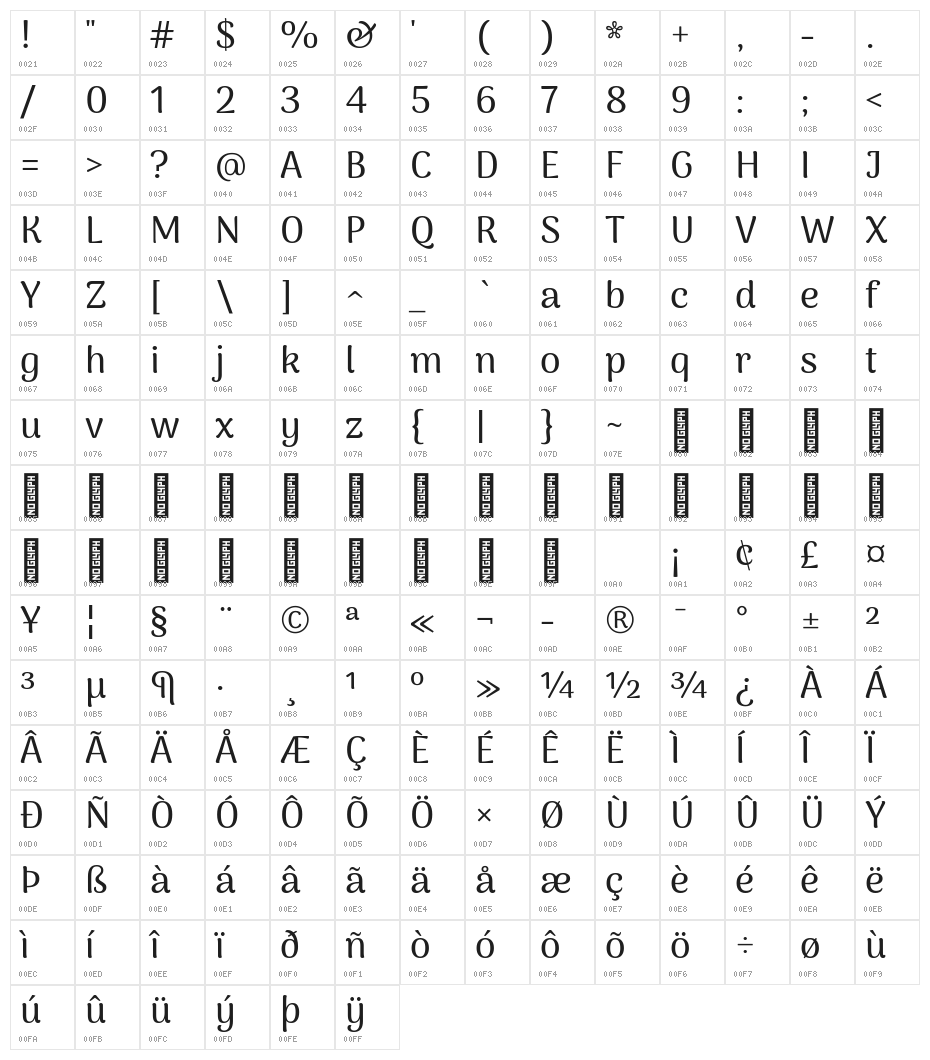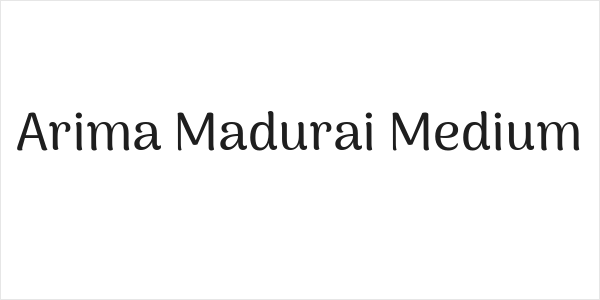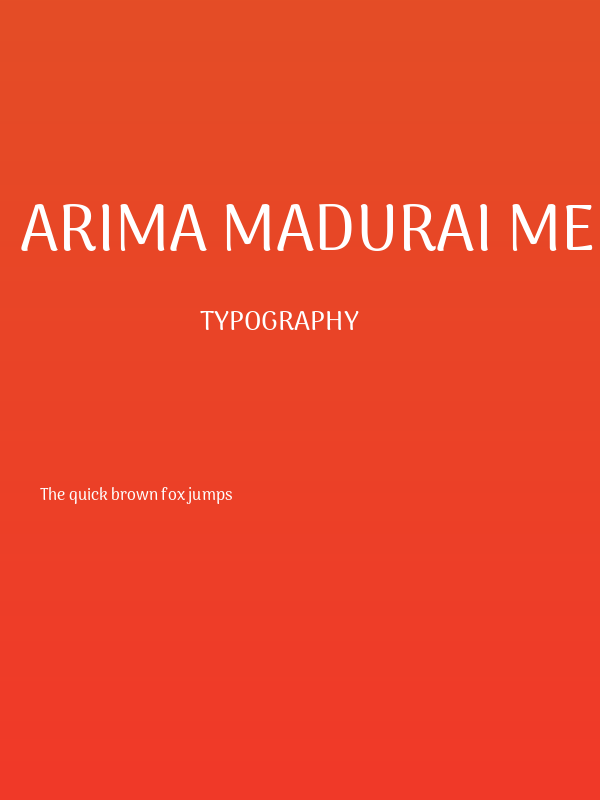
Arima Madurai Medium Font
Arima Madurai Medium Description
This font features a clean and modern design with a slight touch of elegance. The characters are well-balanced, with a medium weight that provides a sense of stability and readability. The uppercase letters are slightly taller than average, giving a distinctive appearance, while the lowercase letters maintain a consistent flow. The numerals are clear and easy to read, making them suitable for various applications. Special characters are crafted with precision, adding to the font's versatility. The overall style is approachable and professional, making it suitable for both digital and print media.
| Proposed Projects | Ideal for branding, editorial design, websites, and advertising materials. |